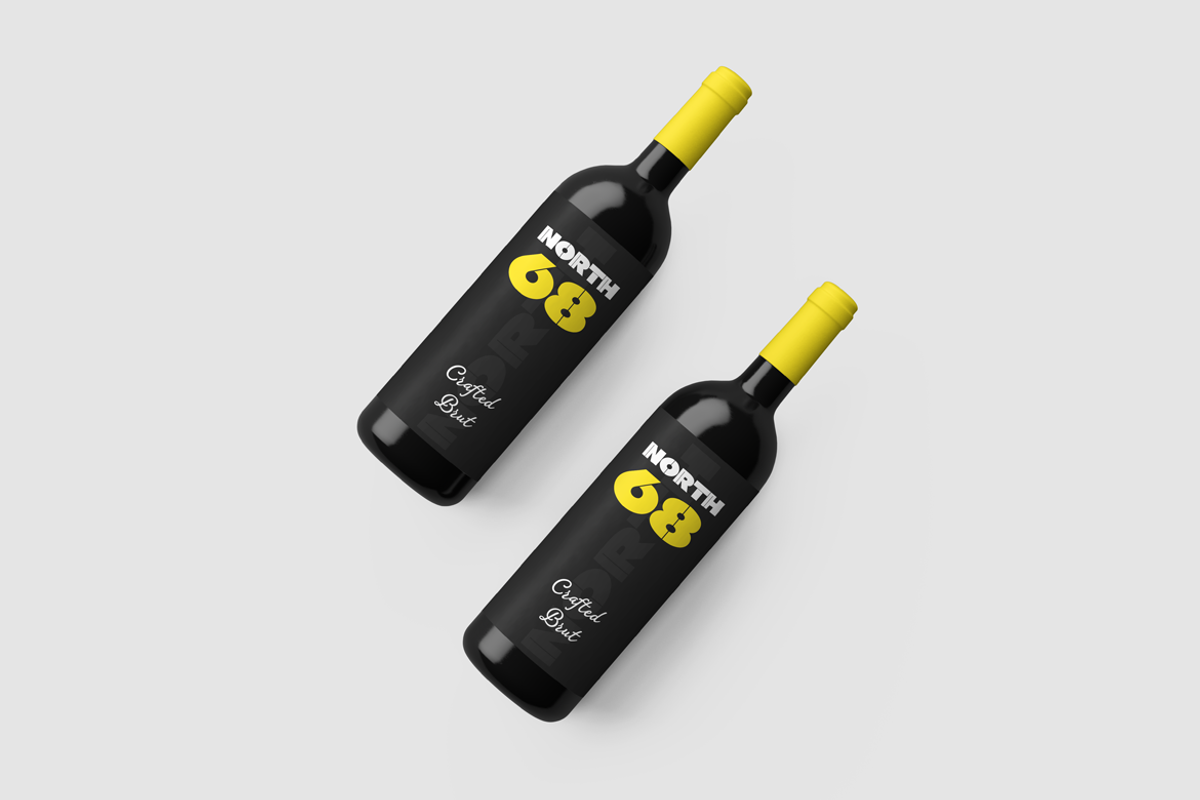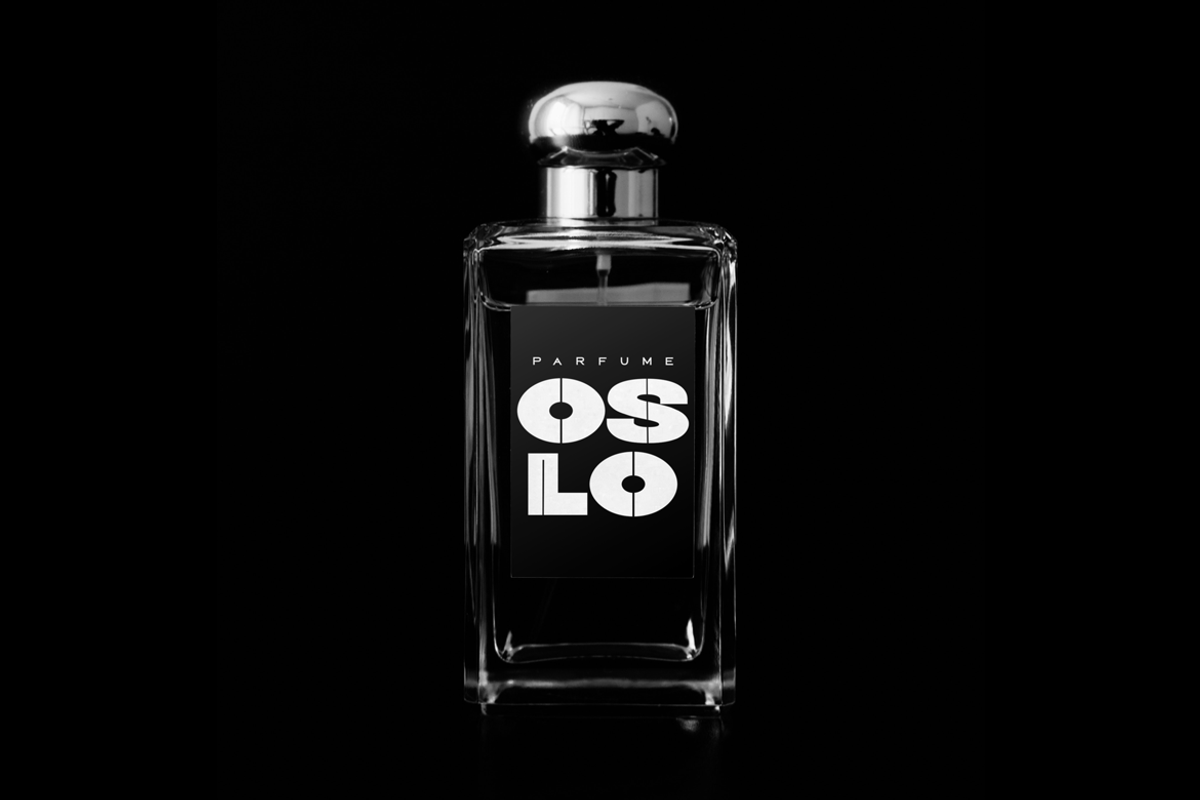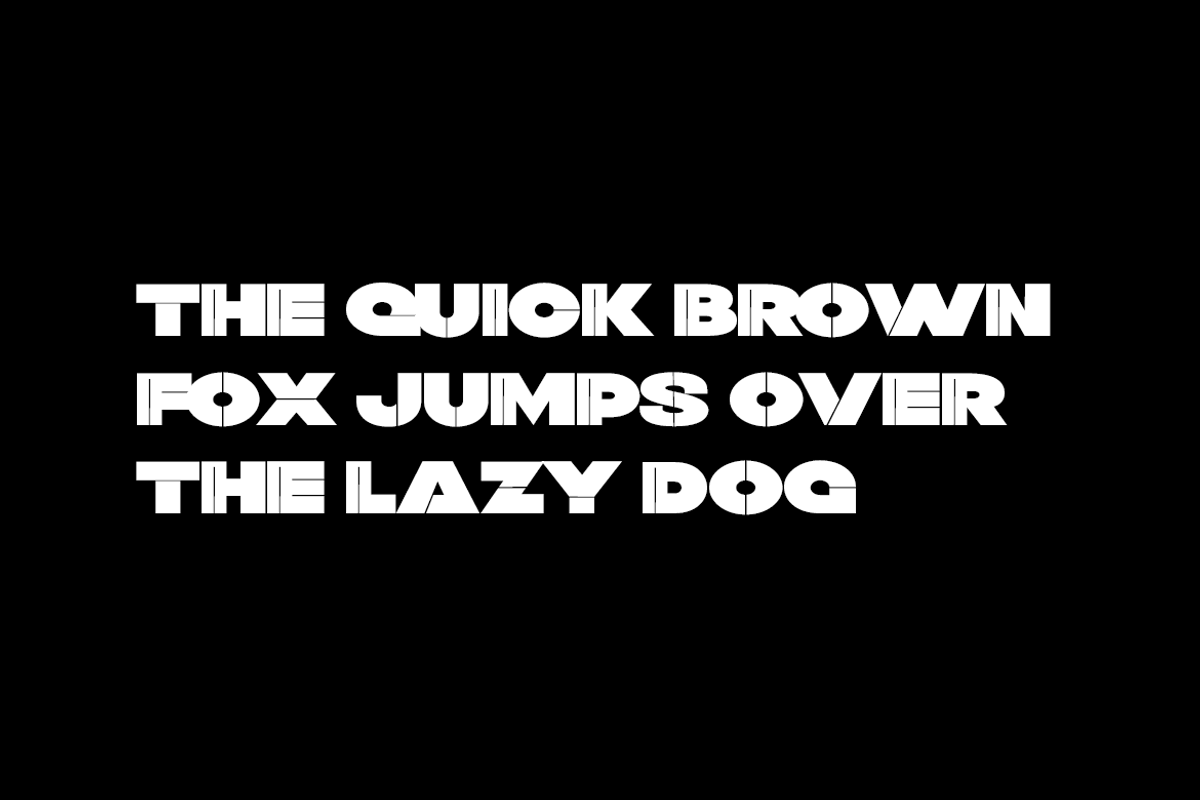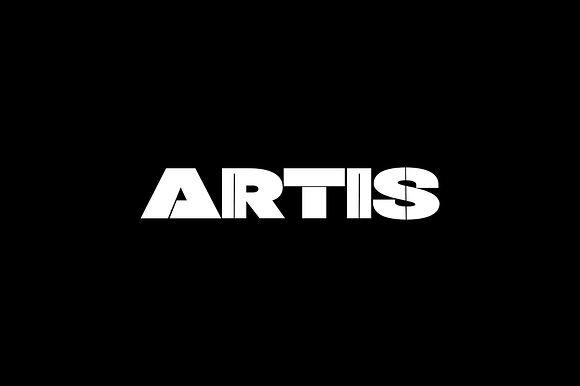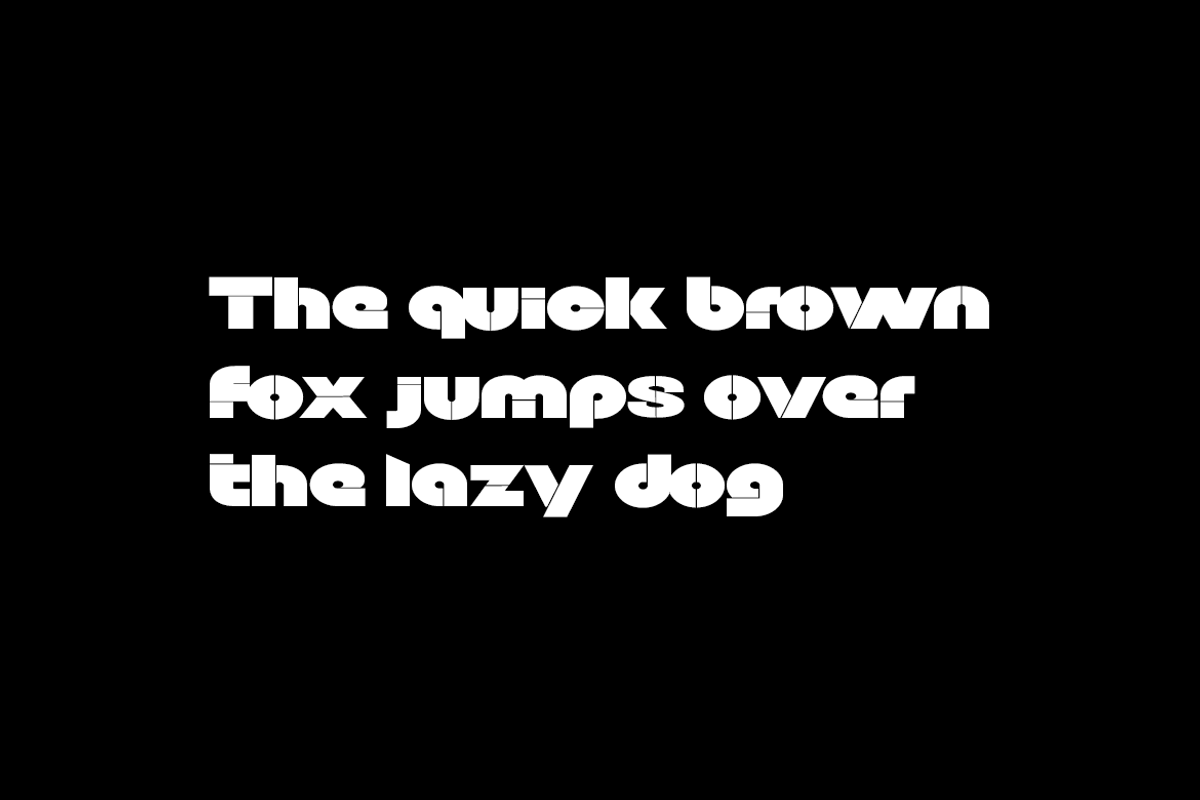
ARTIS - Display / Logo Typeface
ARTIS, a unique display typeface made with a touch of it's own. This typeface is perfect for headlines, big text, branding, logotypes & display usage. Also suitable for creating outstanding logos, promotional content and marketing graphics that can really grab attention from your visitors. Please see the examples shown above to get an idea about the capability of this typeface.